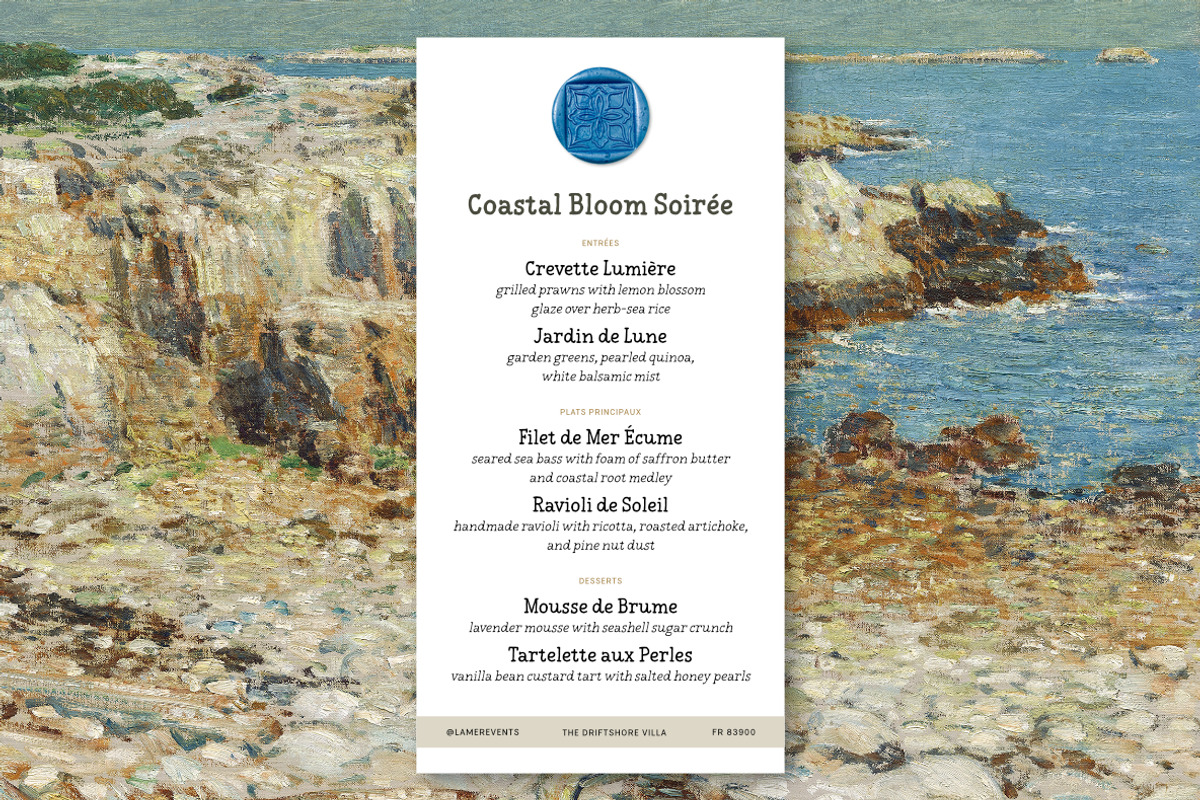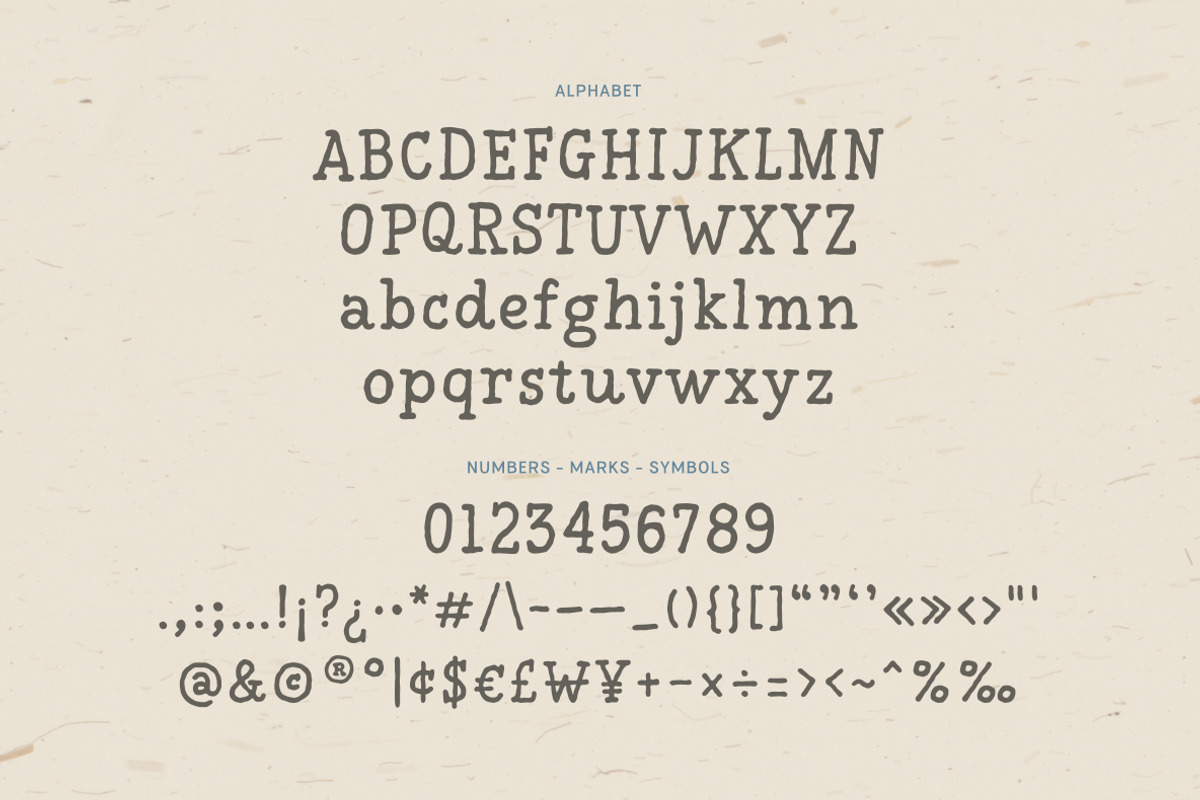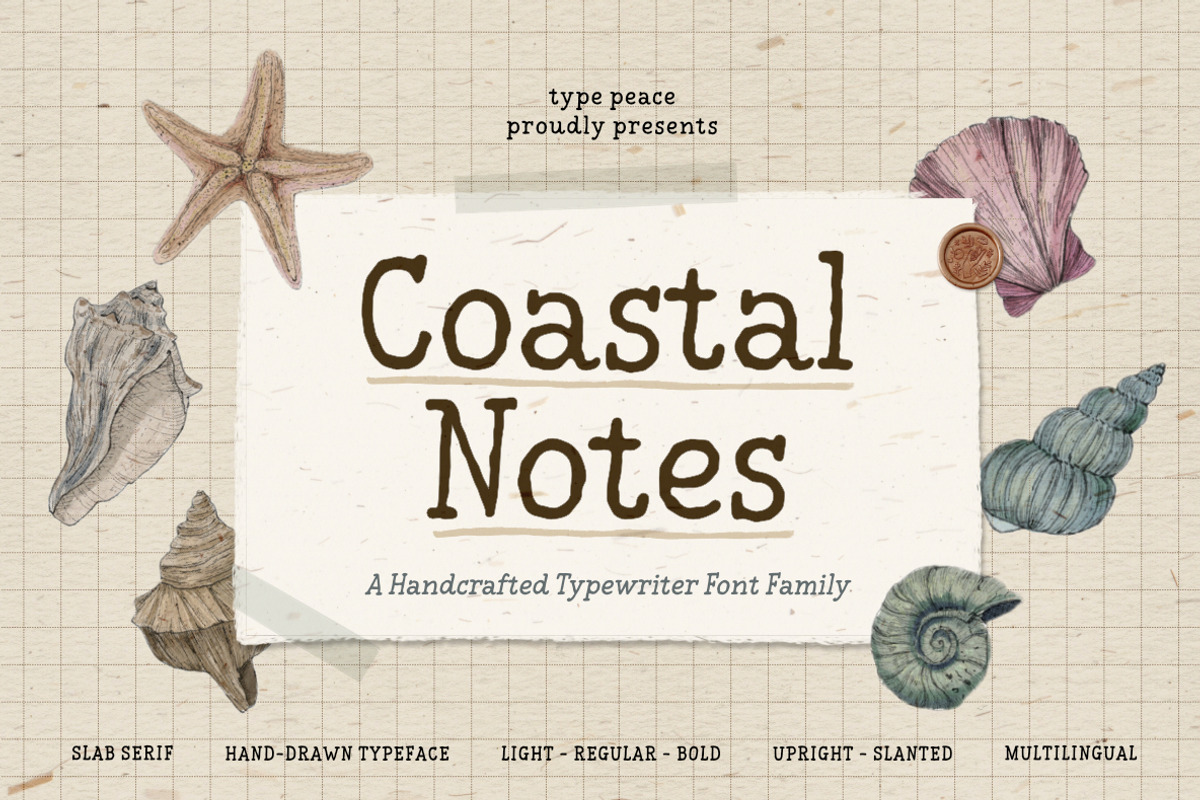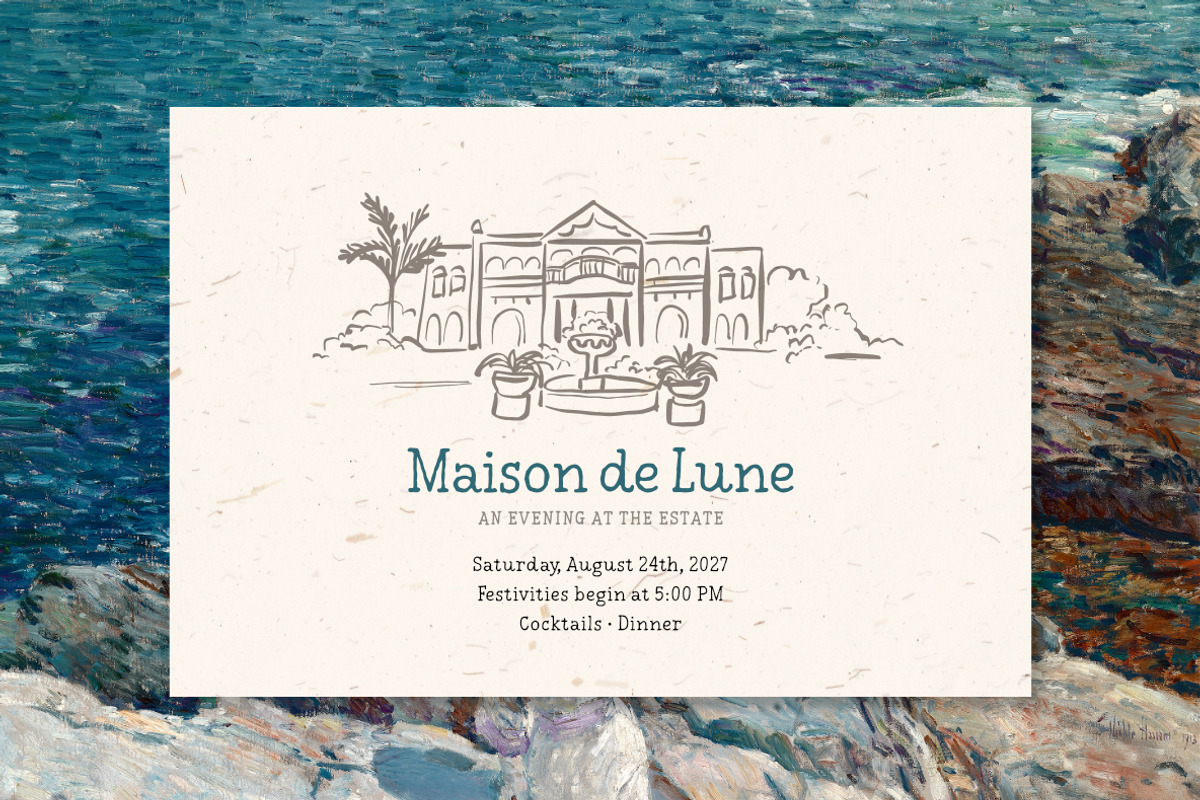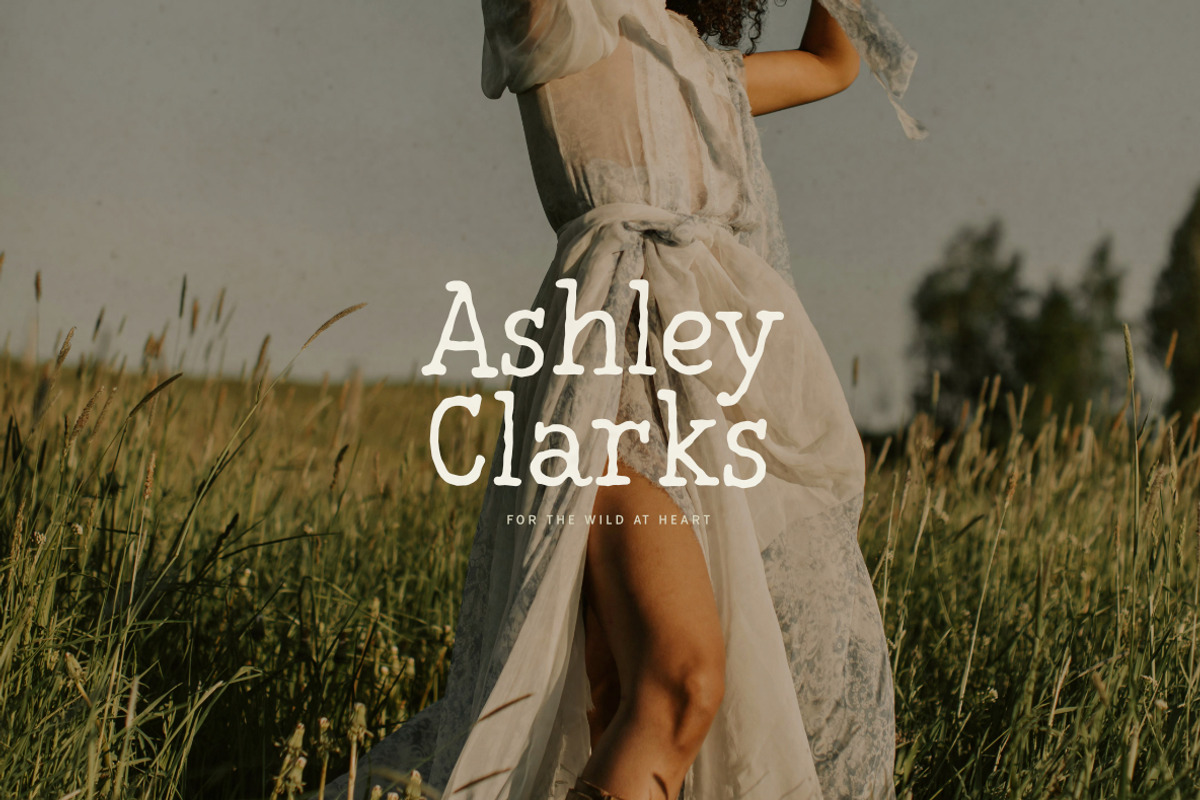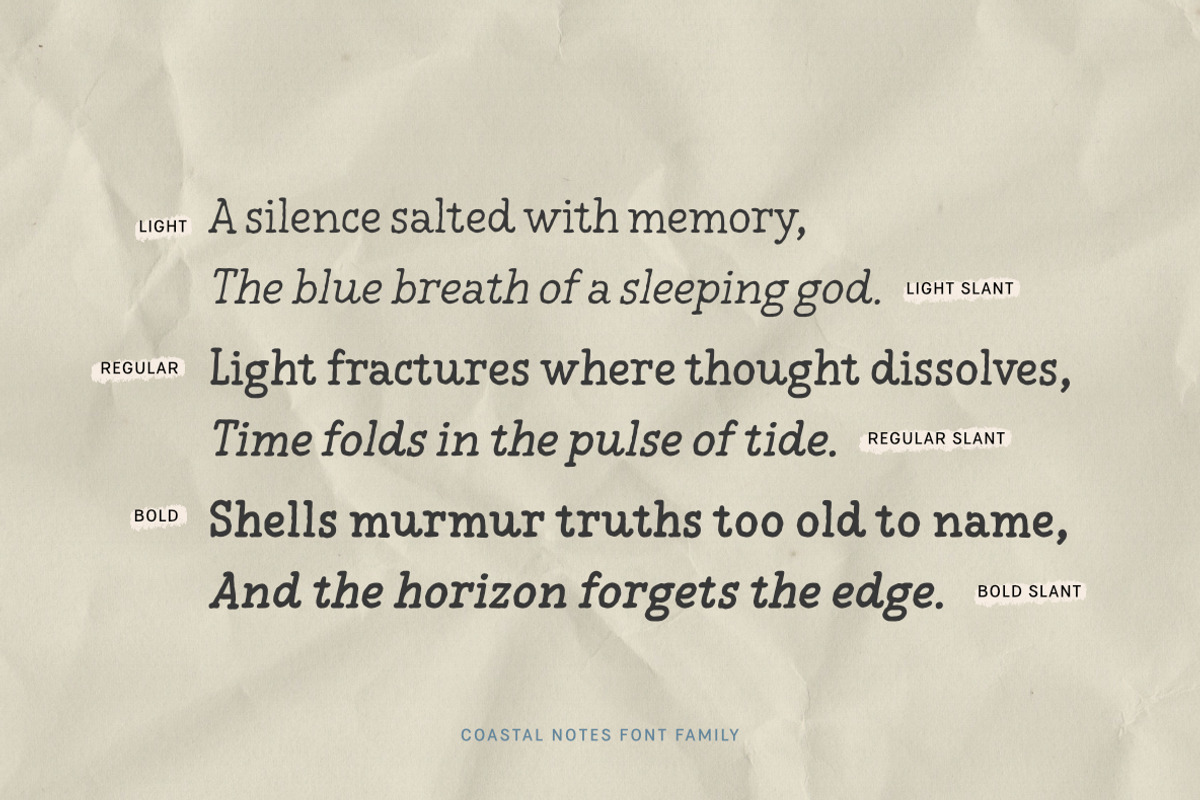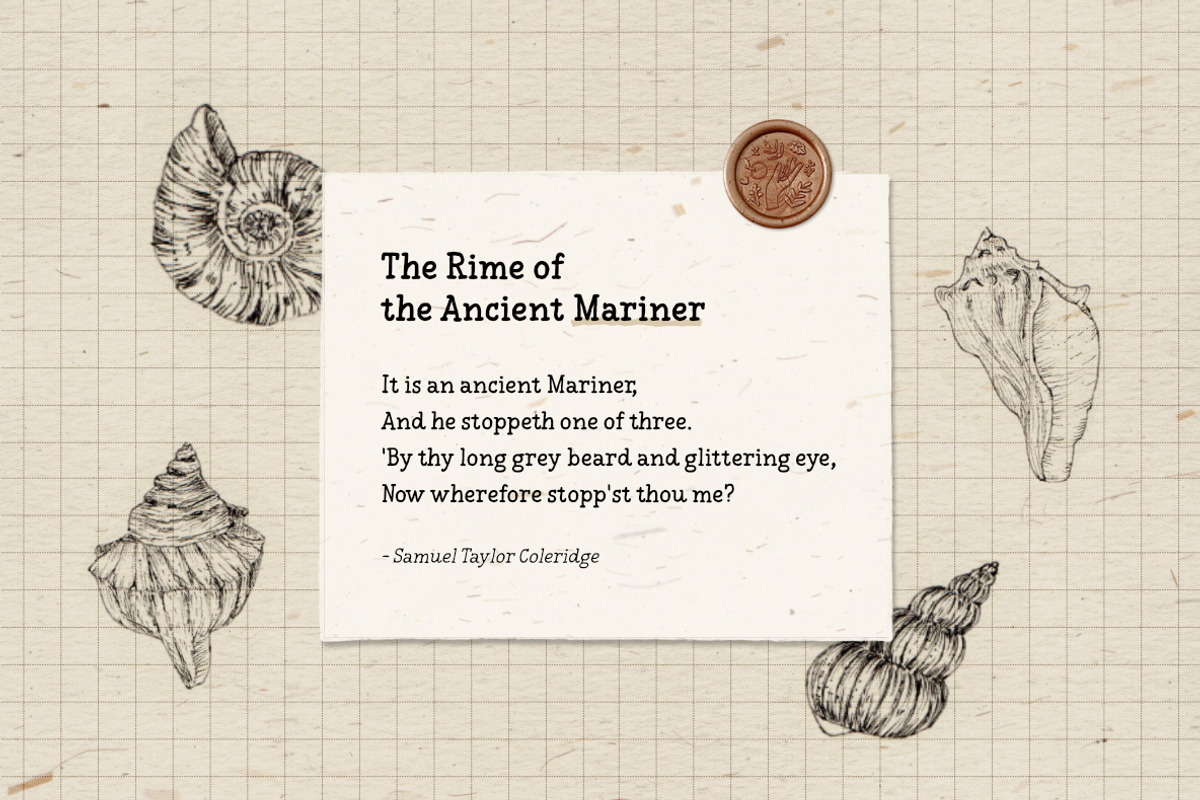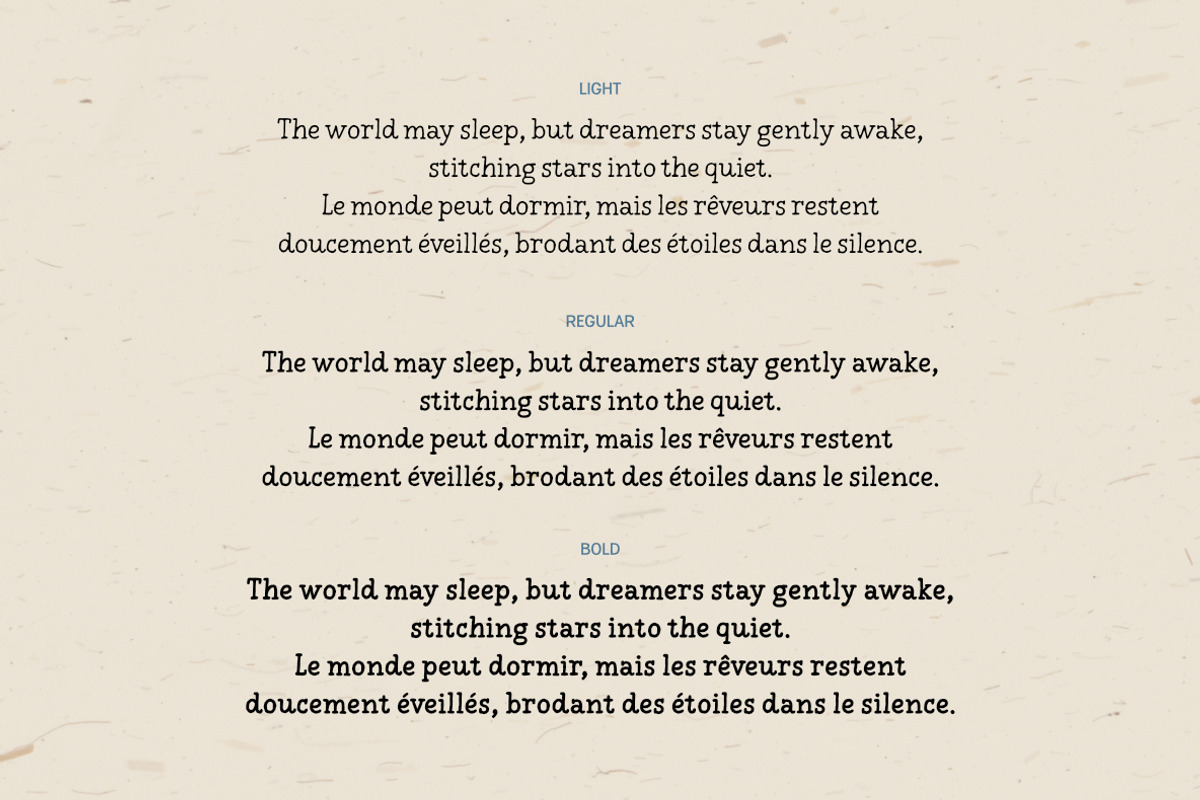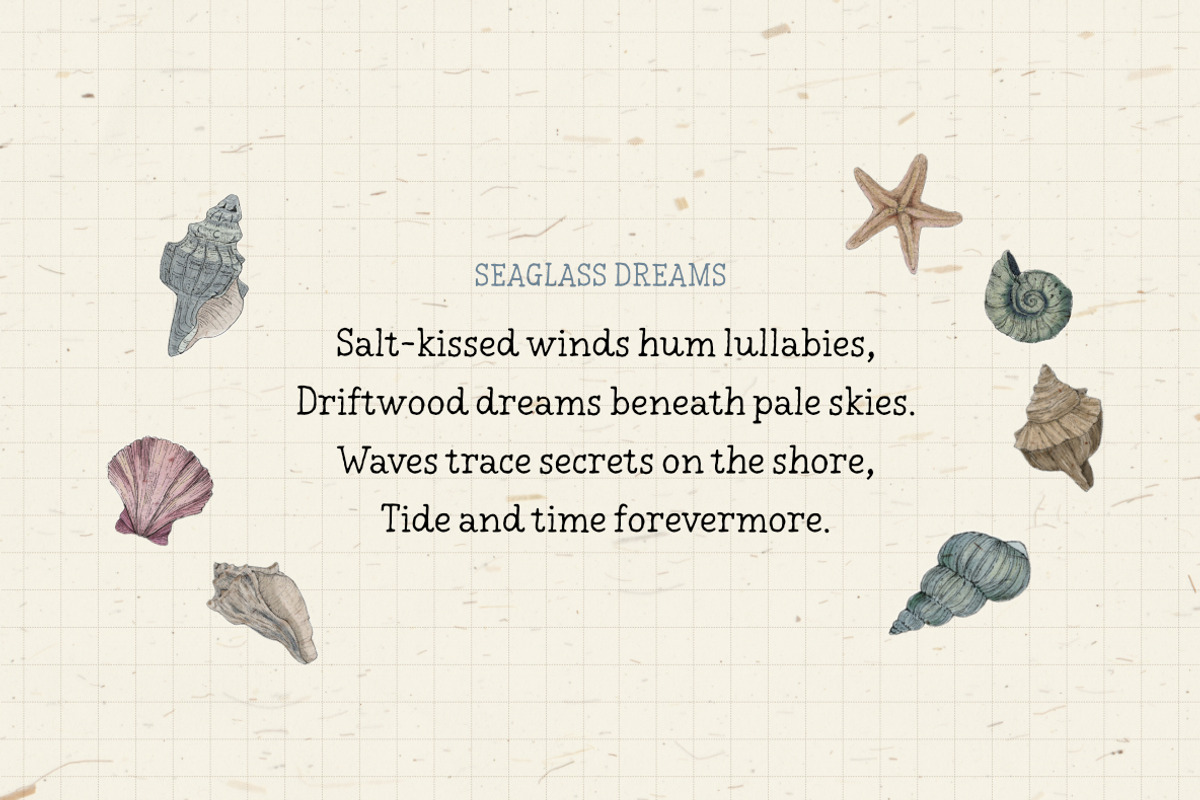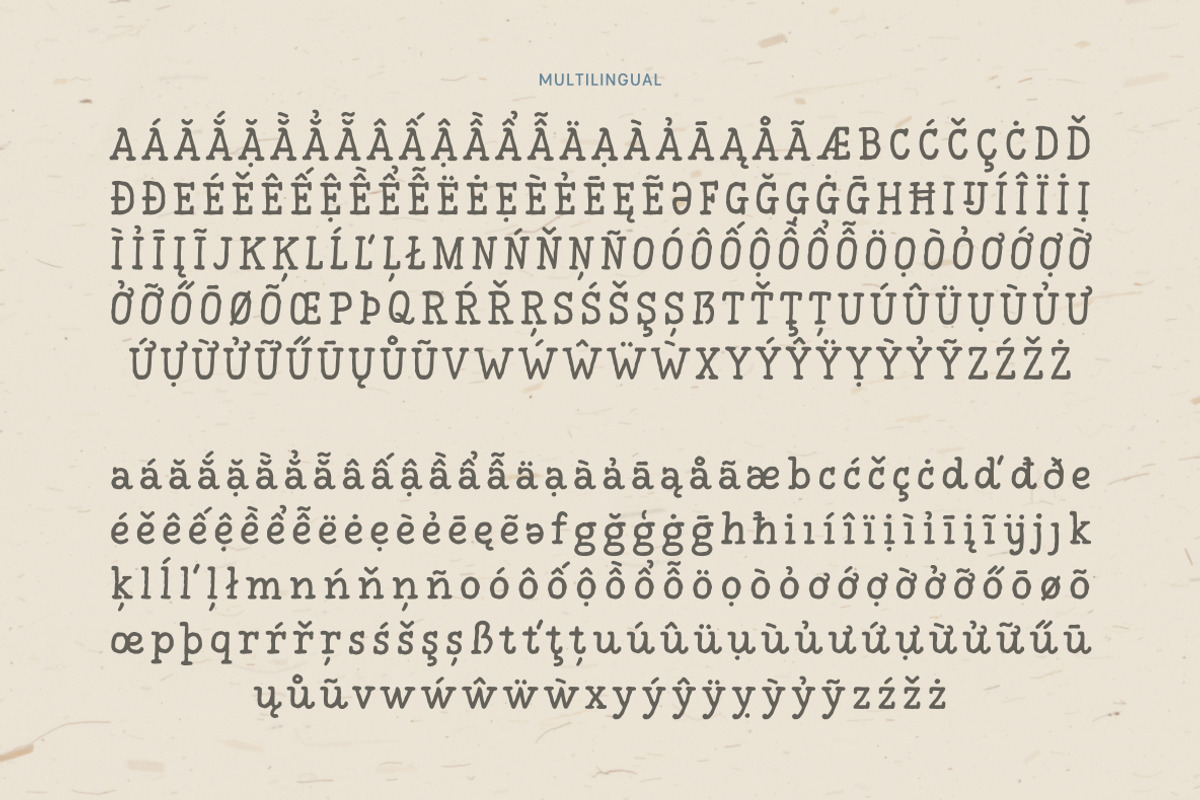
COASTAL NOTES | Typewriter Font
Coastal Notes is a hand-drawn slab serif font family inspired by the timeless charm of vintage typewriters. With six styles—Light, Regular, and Bold, each available in Upright and Slanted—Coastal Notes brings a touch of organic texture and personality to your typography. Its natural roughness and subtle irregularities echo the feel of ink pressed onto paper, making it perfect for projects that call for warmth, character, and authenticity.
- 6 fonts
- Numbers, marks and symbols
Script: Latin
Supported Languages: English, Western European, Central European, South Eastern European, Oceanian, Vietnamese